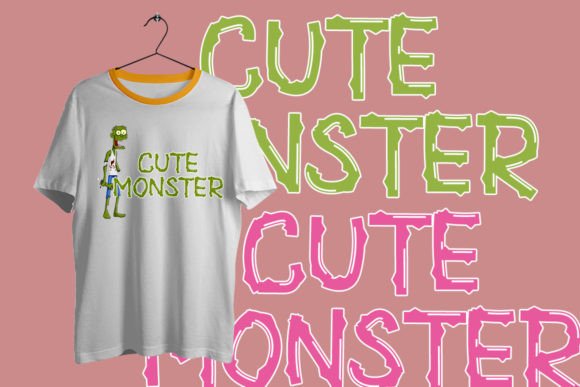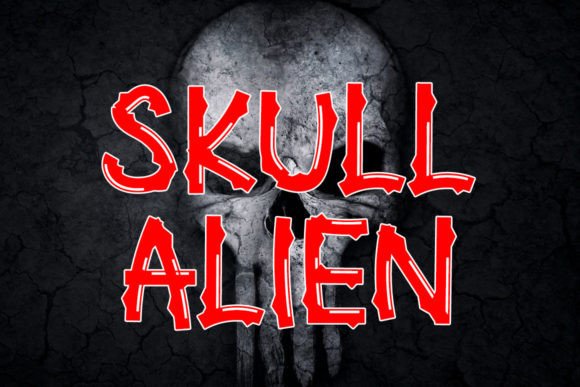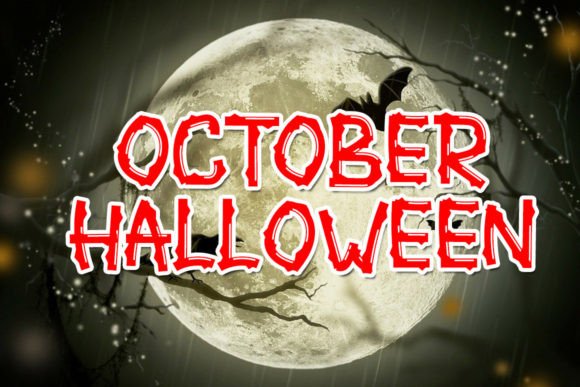
Introduction to Halloween Classmate Font
Halloween Classmate is a beautiful and bold display font.
It works great on book covers, storybooks, banners, flyers, or anything that needs to grab the attention of the viewer .
Why Choose Halloween Classmate Font?
Halloween Classmate Font offers exceptional quality and versatility, making it a valuable addition to your design toolkit. Whether you’re creating for personal projects or commercial use, Halloween Classmate Font delivers professional results.